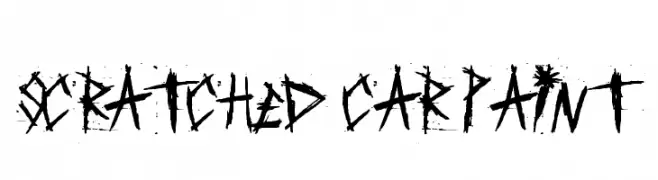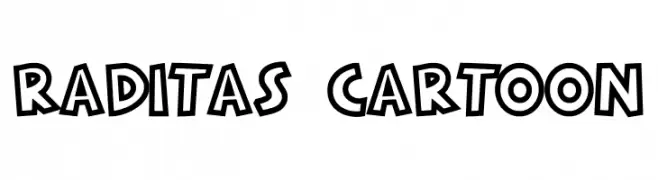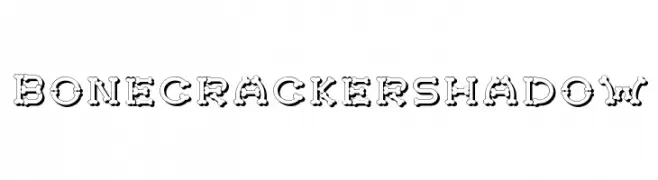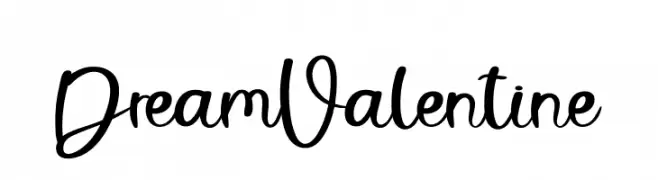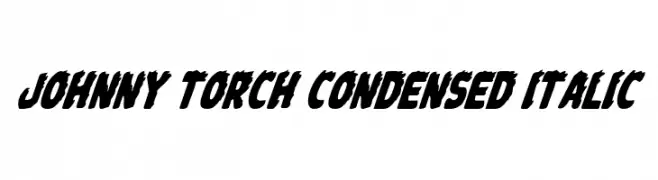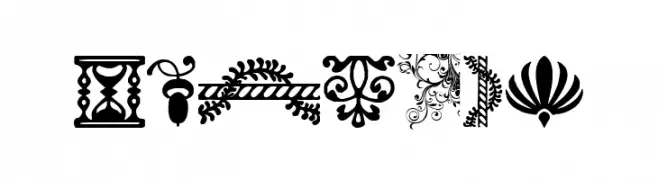
A distressed, graffiti-like font with jagged, uneven strokes and a rebellious aesthetic.
A dynamic, italicized font with a handwritten style and smooth, continuous strokes.
A bold, cartoonish font with thick outlines and playful character design.
A decorative bone-themed font with a shadow effect, perfect for spooky designs.
Playful handwritten script font.
A bold, condensed italic font with high contrast and dynamic style.
A bold, playful font with dynamic, irregular shapes and exaggerated serifs.
A bold, stencil-style font with geometric shapes and distinct gaps.
A collection of intricate, vintage-inspired decorative elements with art deco influences.